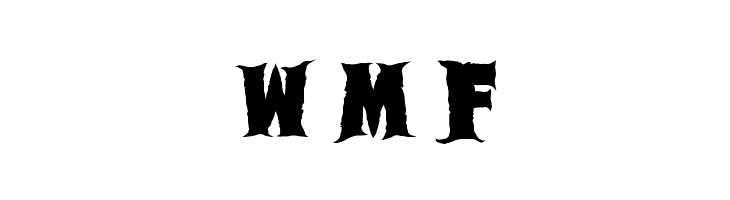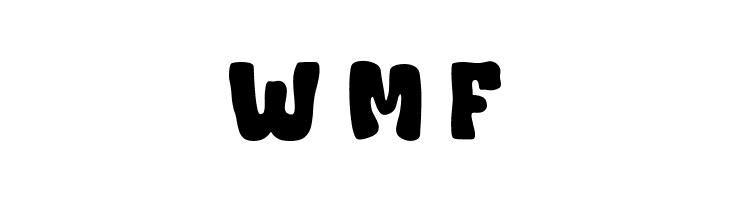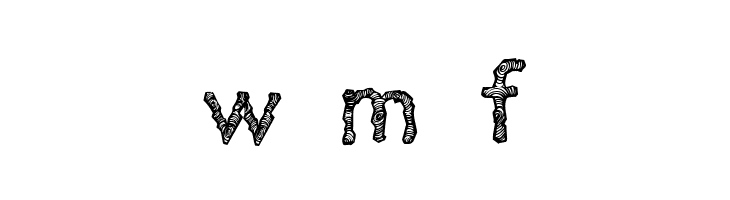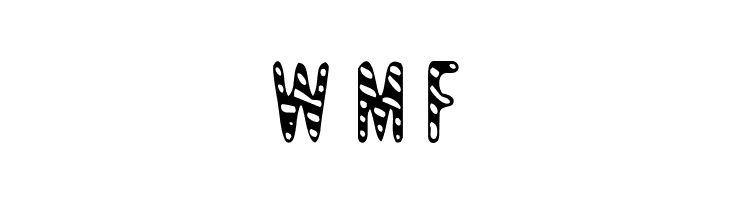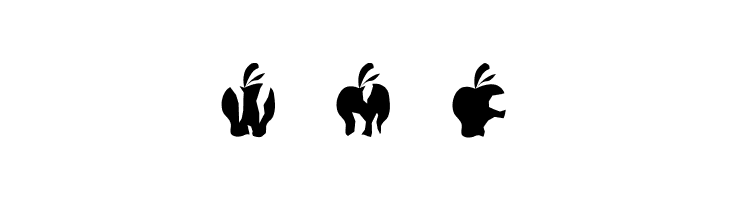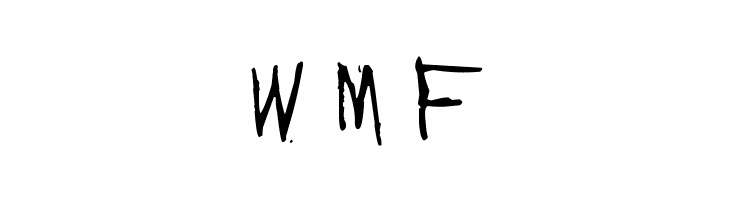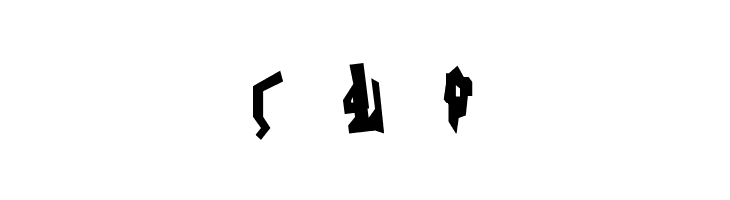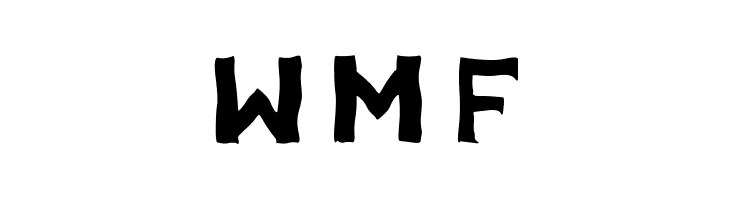
• Gharwich
A bold, playful font with rounded edges and a vintage feel.
• Ghoul
• Ghoulish
A bold, jagged font with a spooky, horror-themed design.
• Ghund Ziliag
A bold, hand-drawn font with a raw and expressive style.
• GiantTigers
• GiantTigers-Regular
• Giedi Decepticon Graffiti
A bold, graffiti-inspired font with angular, geometric shapes and a rebellious edge.
• Gift Wrapped
• Gigit ApelRegular
A whimsical font with apple-shaped characters, perfect for playful designs.
• Gill Tree
An organic, tree bark-inspired font with intricate, hand-carved details.